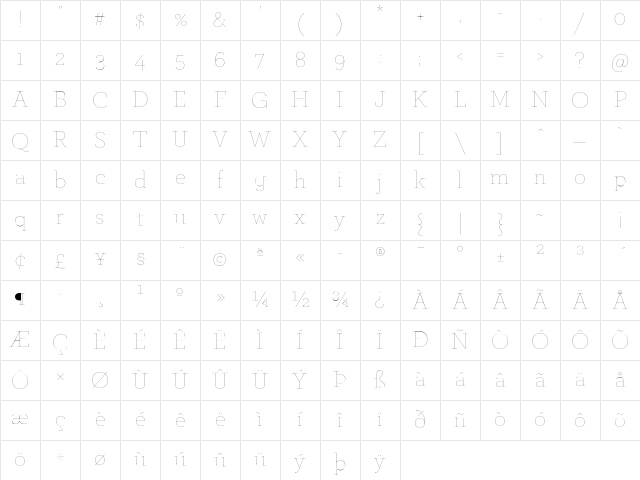
ArcherPro Hairline Free Font
ArcherPro Hairline
Style: Hairline
ArcherPro Family
ArcherPro Hairline
Design Context for ArcherPro
ArcherPro is a composed and adaptable typeface that performs quietly and consistently across a wide range of design contexts. Its slender proportions lend an understated elegance to any composition.